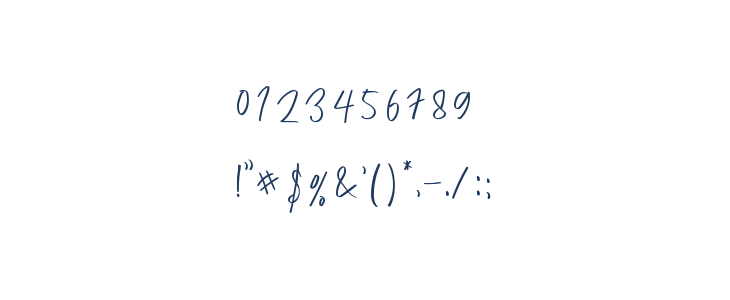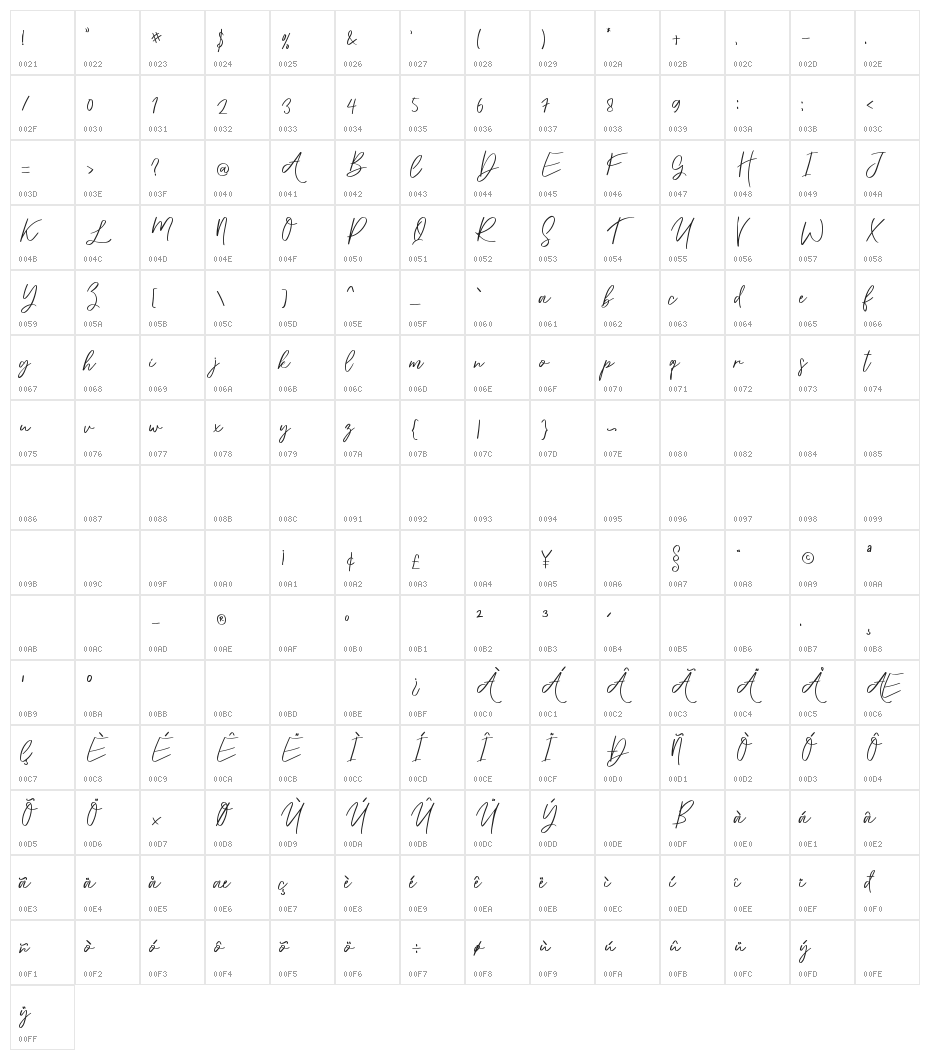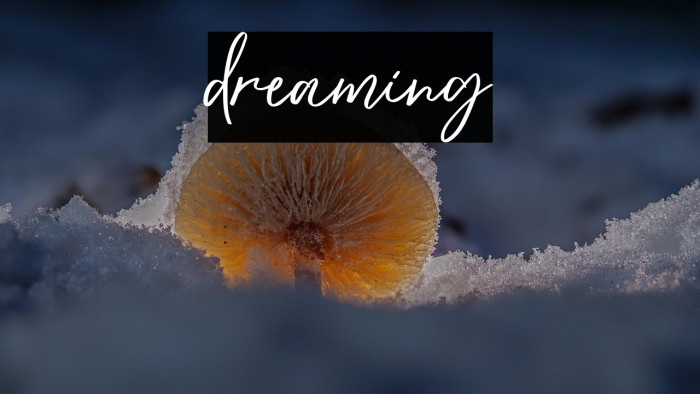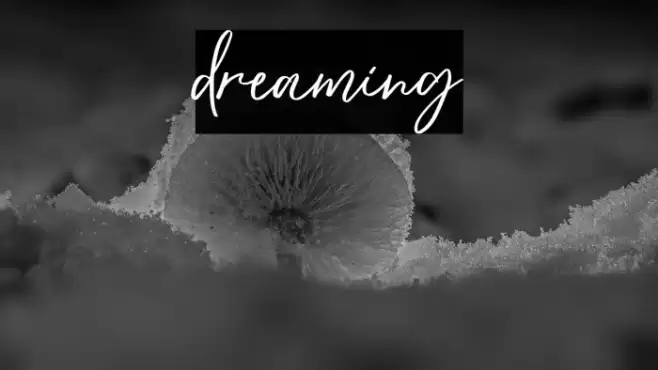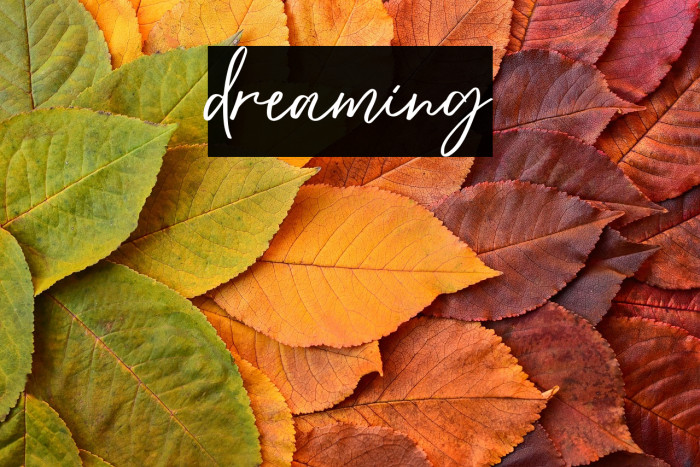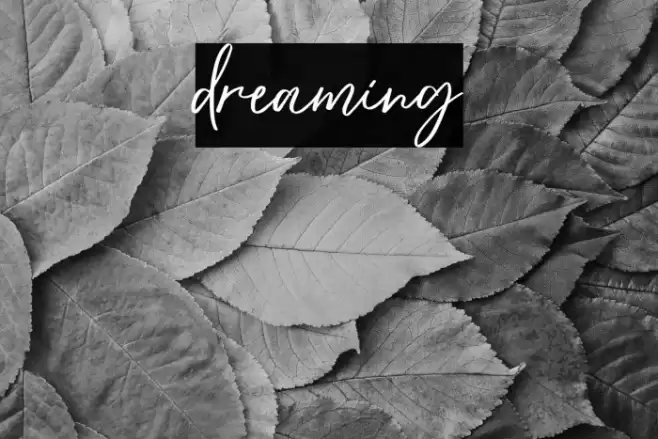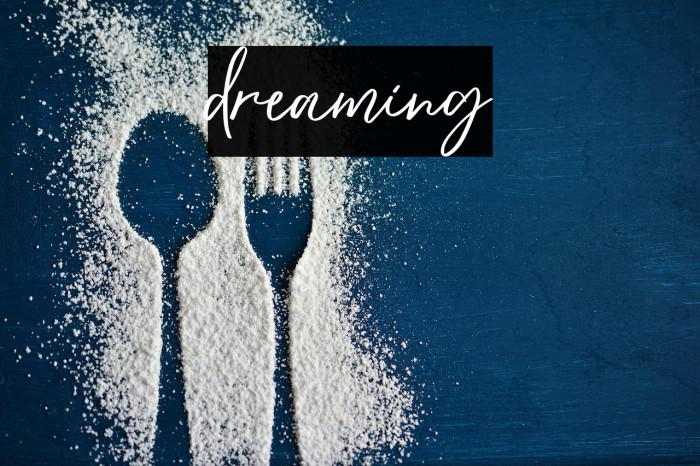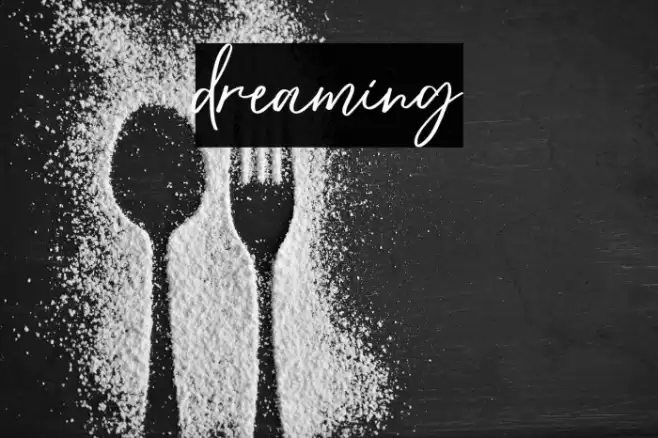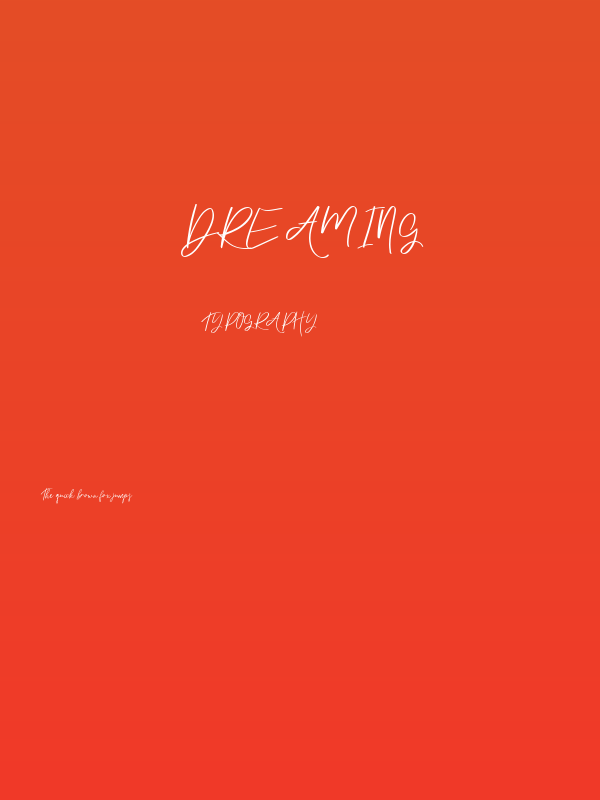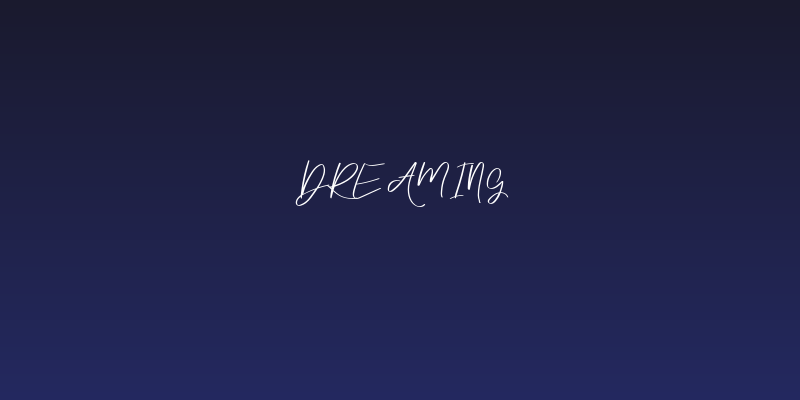
dreaming Font
dreaming Description
This font features a flowing, cursive style that exudes elegance and sophistication. The characters are connected in a smooth, continuous manner, reminiscent of traditional handwriting. The uppercase letters are slightly larger and more ornate, while the lowercase letters maintain a consistent, graceful flow. The numbers and special characters complement the alphabet with similar fluidity and charm. The overall appearance is both stylish and legible, making it suitable for a variety of creative applications.
| Proposed Projects | Ideal for wedding invitations, greeting cards, branding, and logo design where a personal touch is desired. |